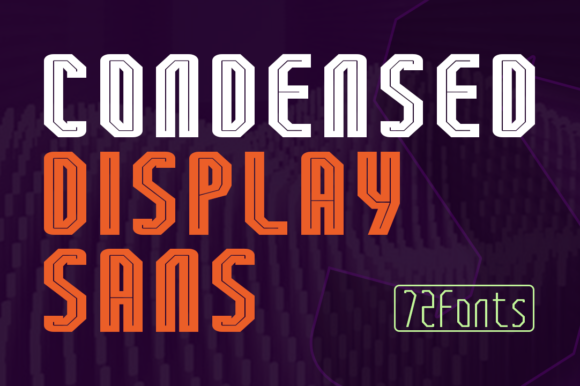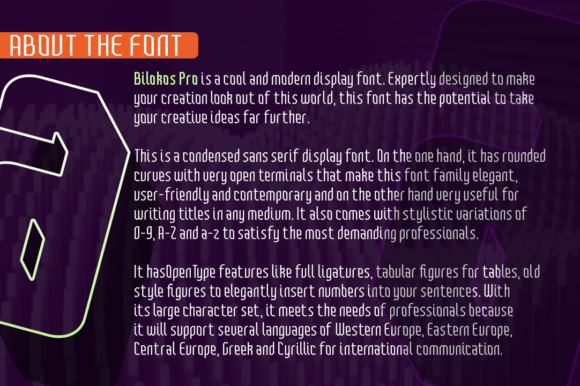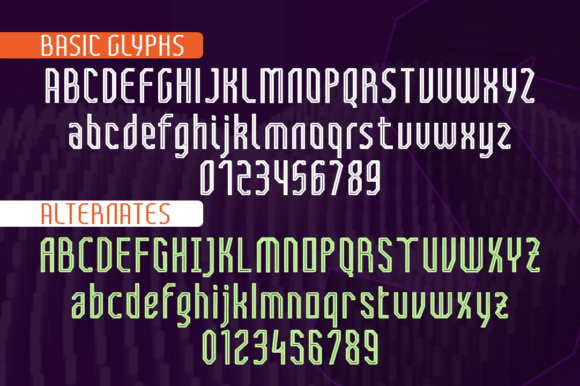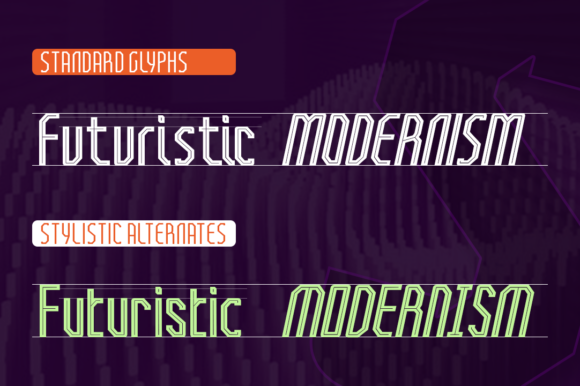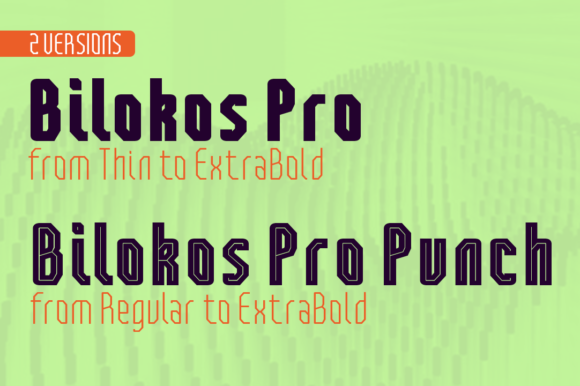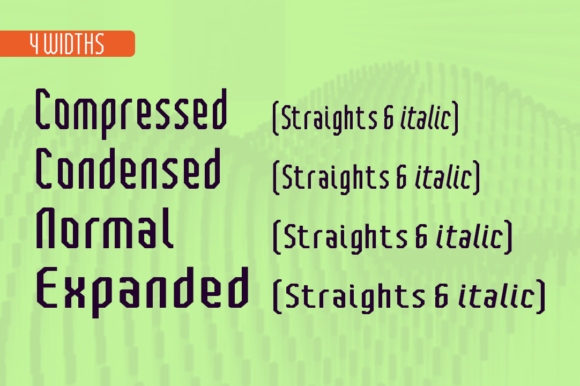
Bilokos Font: The Ultimate Display Font for Creative Projects
Bilokos is a bold and incredibly cool display font that has been making waves in the design community. Its unique style and versatility make it an excellent addition to any font library, allowing designers and crafters to elevate their creations to the next level. In this article, we’ll dive into the world of Bilokos Font, exploring its features, benefits, and uses, as well as provide tips on how to make the most of this amazing font.
The Features of Bilokos Font
Bilokos Font is a sans-serif display font that boasts a bold and eye-catching design. Its clean lines, geometric shapes, and distinctive flair make it perfect for a wide range of creative projects, from posters and flyers to logos and branding materials. The font comes in a single style, making it easy to use and incorporate into your designs.
One of the standout features of Bilokos Font is its incredible legibility. Even at smaller sizes, the font remains clear and easy to read, making it ideal for use in headlines, titles, and other display text. Additionally, the font’s bold design ensures that it will grab attention and make a lasting impression on your audience.
The Benefits of Using Bilokos Font
So, why should you add Bilokos Font to your font library? Here are just a few benefits of using this amazing font:
- Versatility: Bilokos Font is incredibly versatile, making it suitable for a wide range of creative projects and industries.
- Legibility: The font’s clean design and bold style ensure that it remains legible even at smaller sizes.
- Attention-grabbing: Bilokos Font is designed to grab attention and make a lasting impression on your audience.
- Ease of use: The font comes in a single style, making it easy to use and incorporate into your designs.
Using Bilokos Font in Your Designs
So, how can you use Bilokos Font in your designs? Here are a few ideas to get you started:
- Posters and flyers: Use Bilokos Font to create eye-catching headlines and titles for your posters and flyers.
- Logos and branding: The font’s bold design makes it perfect for use in logos and branding materials.
- Social media graphics: Add a touch of personality to your social media graphics with Bilokos Font.
- Web design: Use the font to create bold and eye-catching headings and titles for your website.
Tips for Getting the Most out of Bilokos Font
Here are a few tips for getting the most out of Bilokos Font:
- Experiment with different colors: Bilokos Font looks great in a wide range of colors, so don’t be afraid to experiment and find the perfect hue for your design.
- Use it sparingly: While Bilokos Font is incredibly versatile, it’s best to use it sparingly to avoid overwhelming your design.
- Pair it with other fonts: Bilokos Font pairs well with a wide range of other fonts, so feel free to get creative and experiment with different combinations.
In conclusion, Bilokos Font is an incredible display font that is sure to elevate your creative projects to the next level. Its bold design, versatility, and legibility make it an excellent addition to any font library. Whether you’re a designer, crafter, or simply someone who loves to create, Bilokos Font is a must-have font that is sure to inspire and impress.